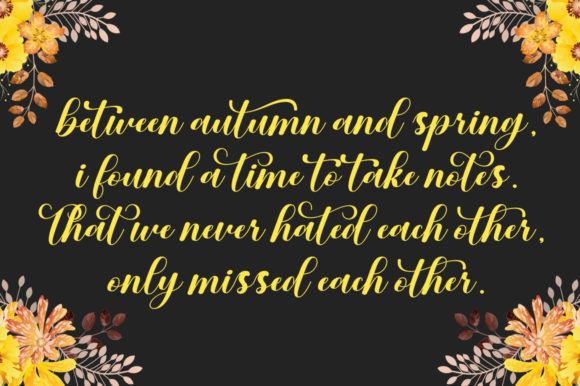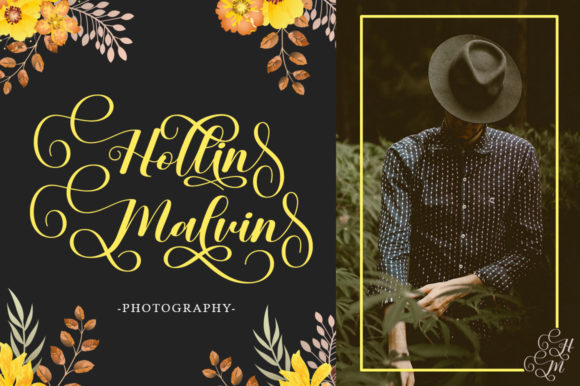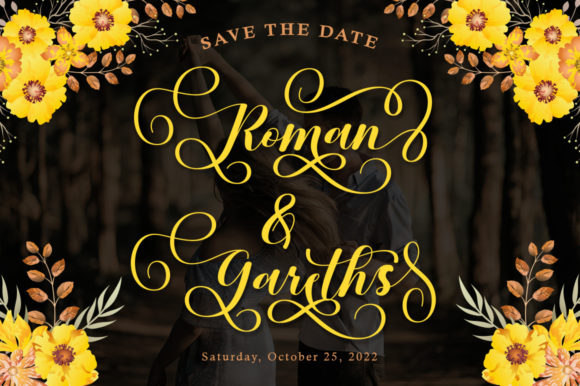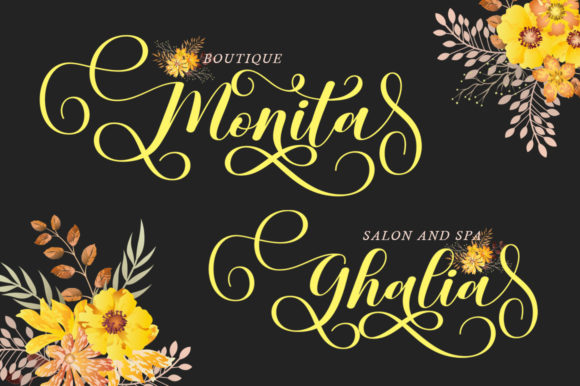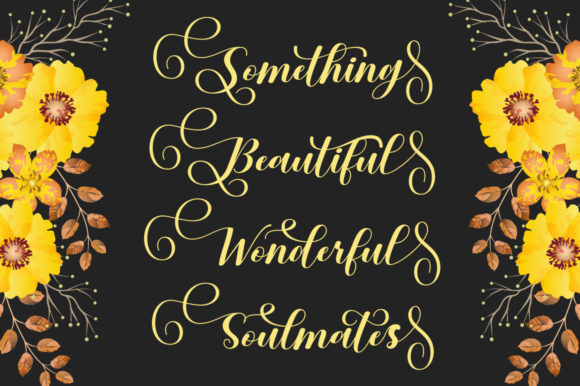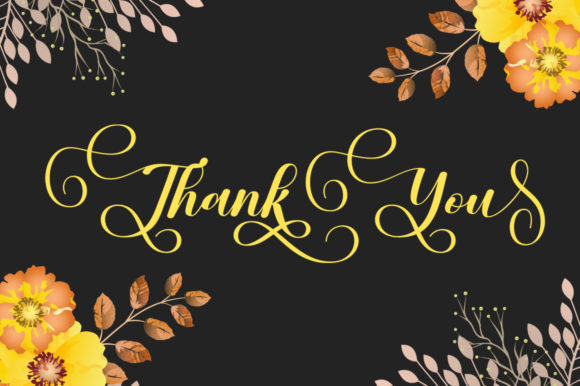
Spring Hearts Font
About Spring Hearts Font
“Spring Hearts” is a contemporary calligraphy font that has been carefully crafted to capture the essence of the spring season. With its elegant and flowing letterforms, this font is a versatile choice for a wide range of creative projects.
The unique characteristics of “Spring Hearts” make it particularly well-suited for branding and personalizing your work. Its modern calligraphy style adds a touch of sophistication and elegance to your designs, making it an excellent choice for creating memorable logos, watermarks, and photo overlays that leave a lasting impression.
The font’s graceful curves and intricate details are perfect for enhancing the visual appeal of greeting cards, posters, and business cards. It can effortlessly infuse your designs with a sense of beauty and charm, which is particularly fitting for spring-themed projects that celebrate renewal and growth.
“Spring Hearts” is an ideal choice for invitations and weddings, where the font’s romantic and delicate appearance can add a touch of romance and sophistication to your event materials. It can beautifully complement floral designs and other decorative elements commonly associated with spring.
Photographers can leverage “Spring Hearts” to add a unique and artistic flair to their photography and fashion projects. By using this font for watermarks and captions, photographers can create a consistent and visually appealing brand identity.
With its extensive set of glyphs and swashes, “Spring Hearts” offers versatility and creativity to designers. The PUA encoding allows for easy access to these additional characters, enabling you to customize and embellish your designs with ornate flourishes and decorative elements that align with the overall style of the font.
Whether you’re creating stationery, letters, or any other form of visual communication, “Spring Hearts” provides a fresh and modern approach that resonates with the spirit of spring. Its unique calligraphy style and elegant aesthetic make it an excellent choice for conveying warmth, sophistication, and creativity in your projects.
In summary, “Spring Hearts” is a modern calligraphy font that captures the essence of spring with its elegant and flowing letterforms. Its versatility makes it suitable for a variety of creative endeavors, from branding and invitations to photography and fashion projects. With its PUA encoding, you can easily access a range of glyphs and swashes to enhance your designs with personalized touches.